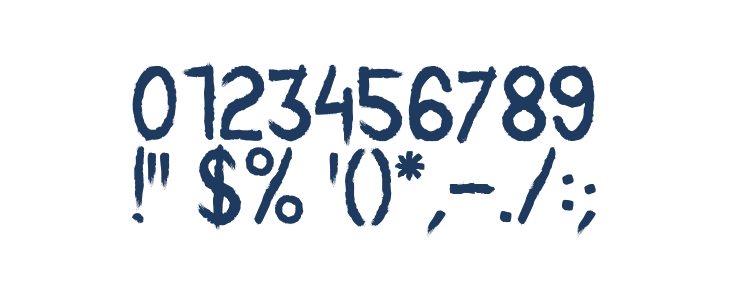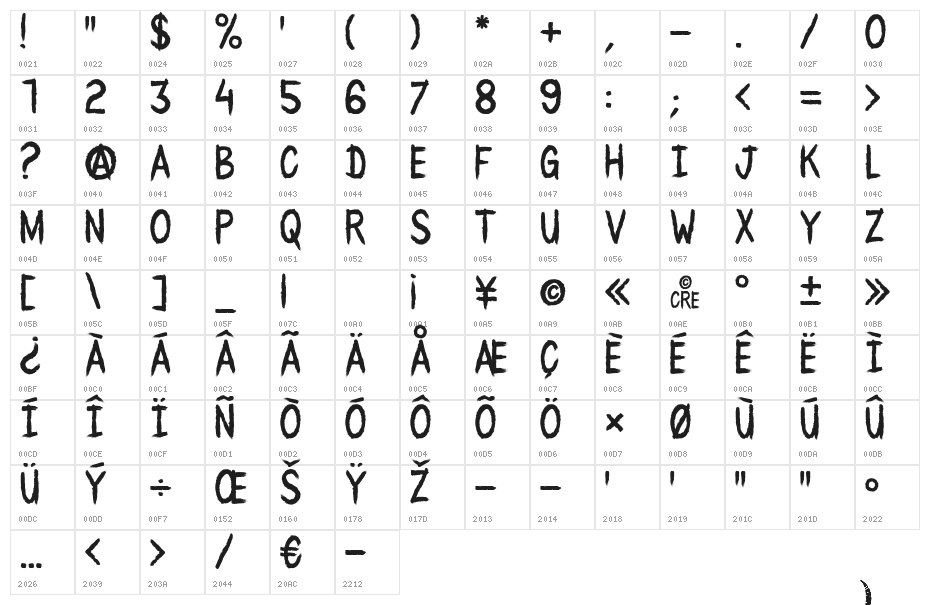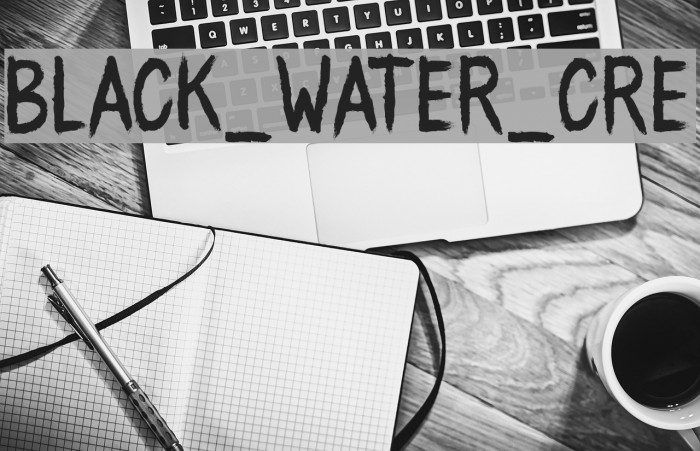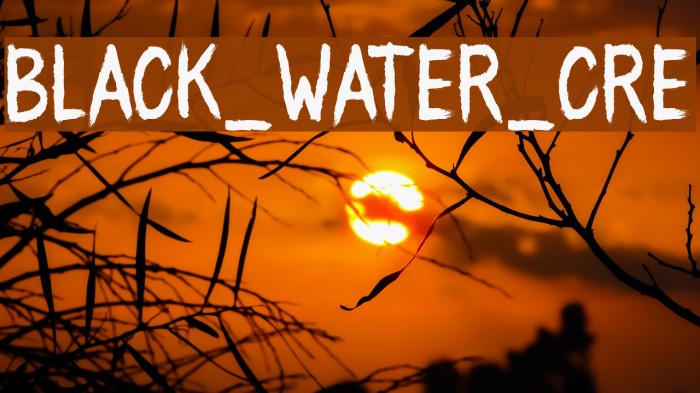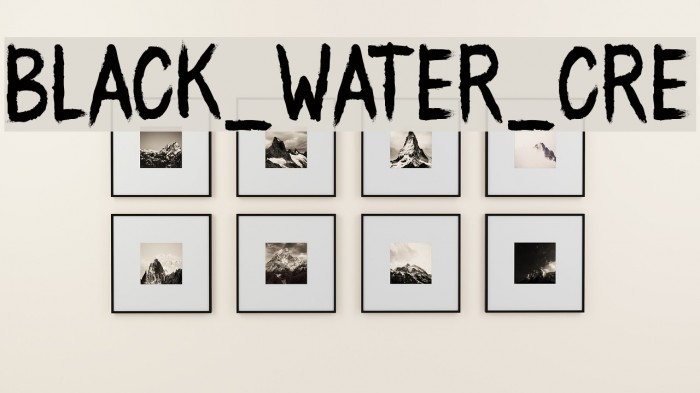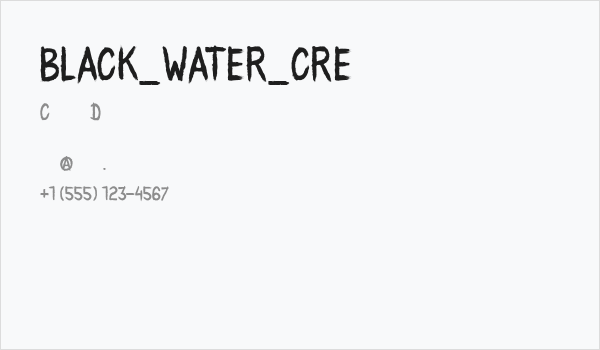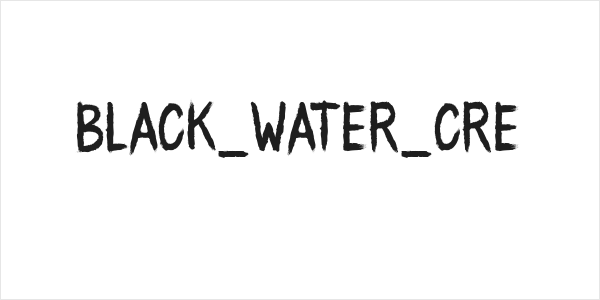
BLACK_WATER_CRE Font
BLACK_WATER_CRE Description
This font features a bold and expressive style with a hand-painted appearance. The characters have a rough, textured edge, giving them a dynamic and energetic feel. The uppercase letters are prominent and slightly irregular, adding to the handcrafted aesthetic. The numerals and special characters maintain this artistic flair, making the font suitable for creative and eye-catching designs. Its unique style is reminiscent of brush strokes, providing a sense of movement and fluidity. This font is ideal for projects that require a bold statement and a touch of artistic expression.